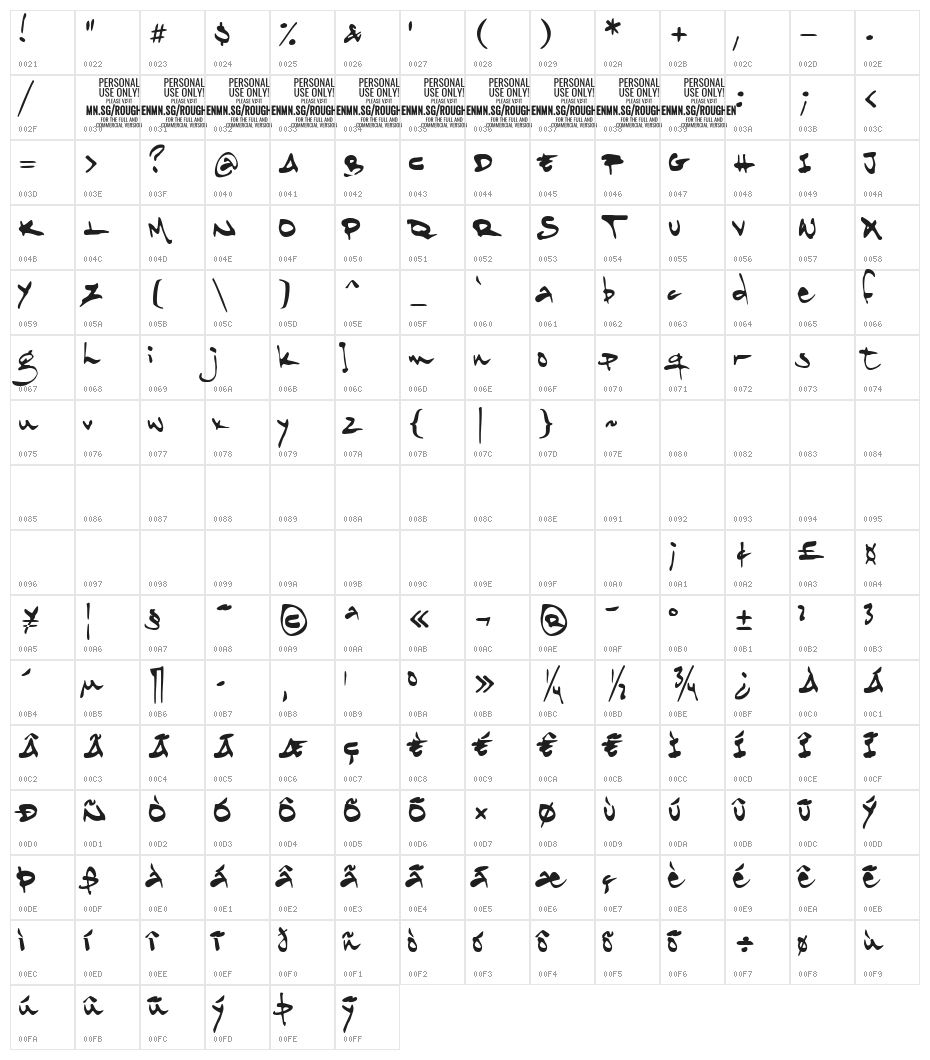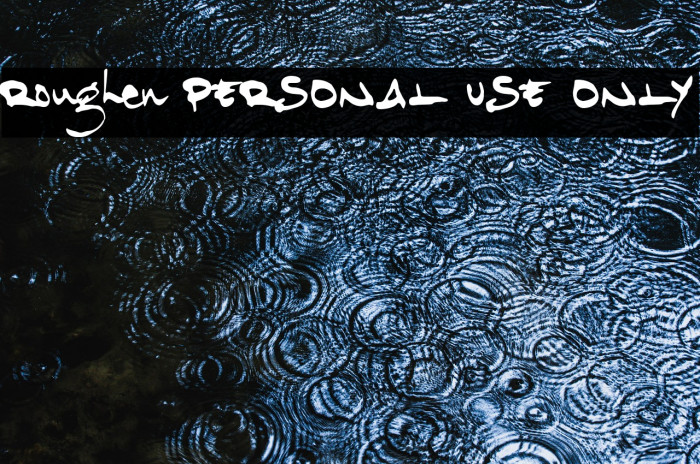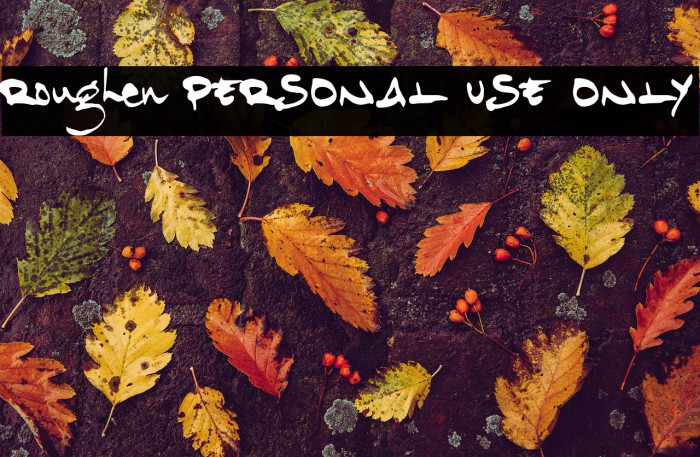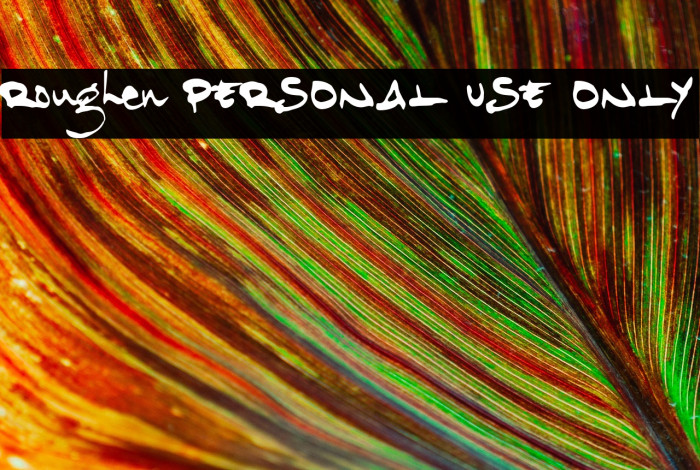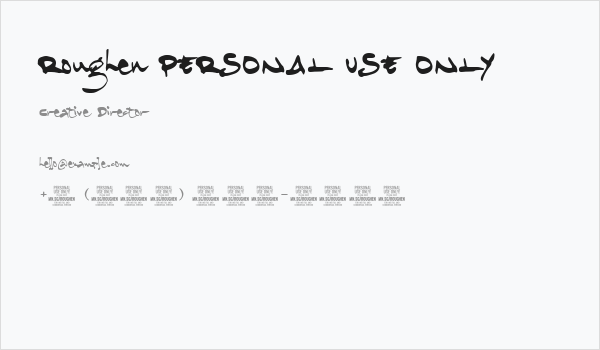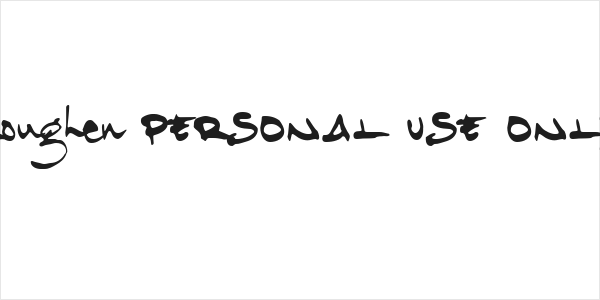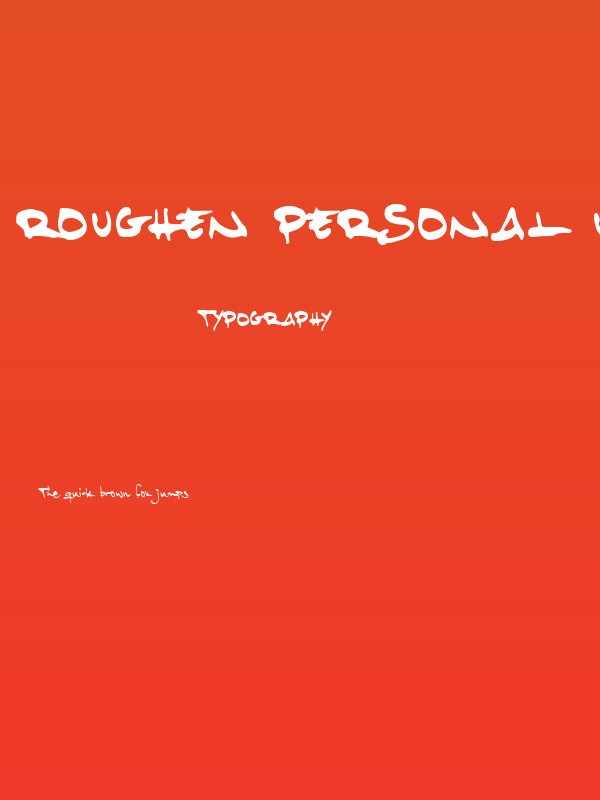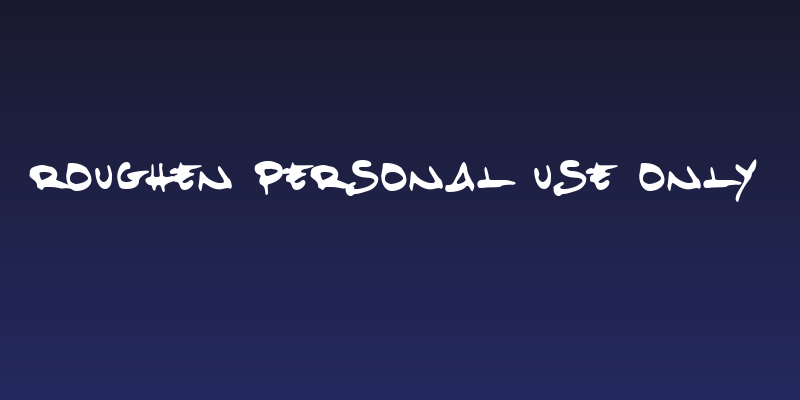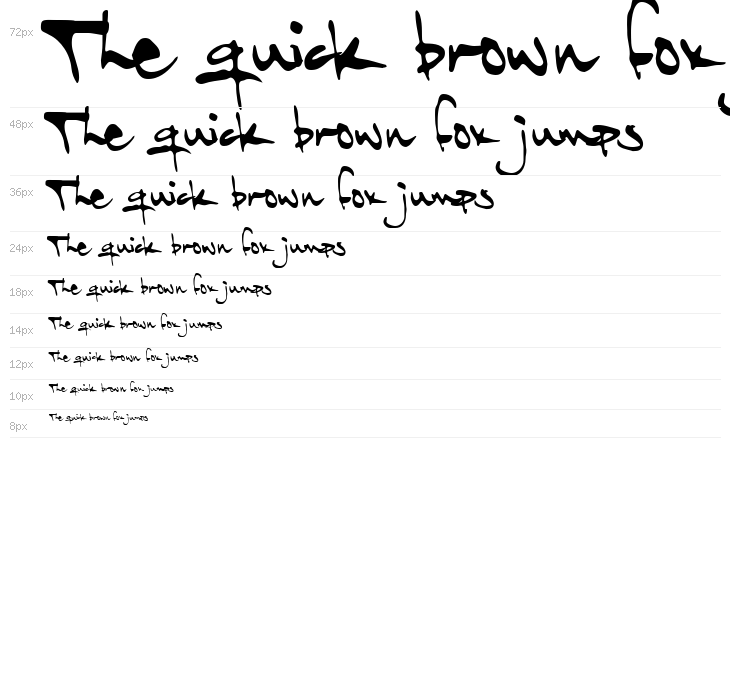
Roughen PERSONAL USE ONLY Font
Roughen PERSONAL USE ONLY Description
This font exhibits a bold, expressive style with a hand-drawn appearance. The characters are irregular and dynamic, giving a sense of movement and energy. The strokes are thick and vary in width, creating a high contrast that enhances its boldness. The overall design is reminiscent of graffiti or street art, making it ideal for projects that require a raw, edgy aesthetic. The uppercase and lowercase letters maintain a consistent style, with some letters featuring exaggerated curves and angles. The special characters complement the alphabet with similar boldness and irregularity.